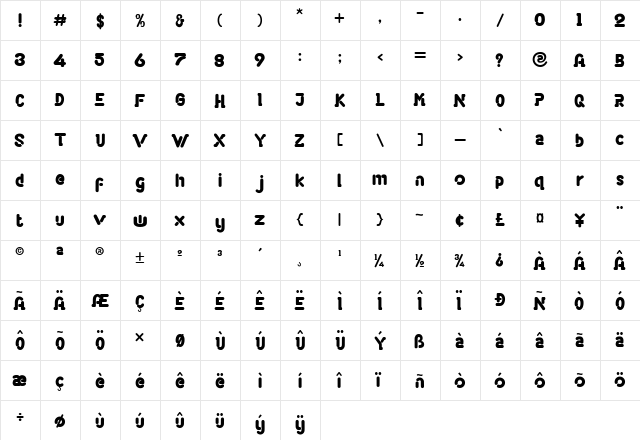
THE CALVIR Regular
| Foundry | Lhotive Studio |
| Designer | Fuady & Aldy |
Design Context for THE CALVIR Typeface
THE CALVIR is a composed and adaptable typeface that performs quietly and consistently across a wide range of design contexts.